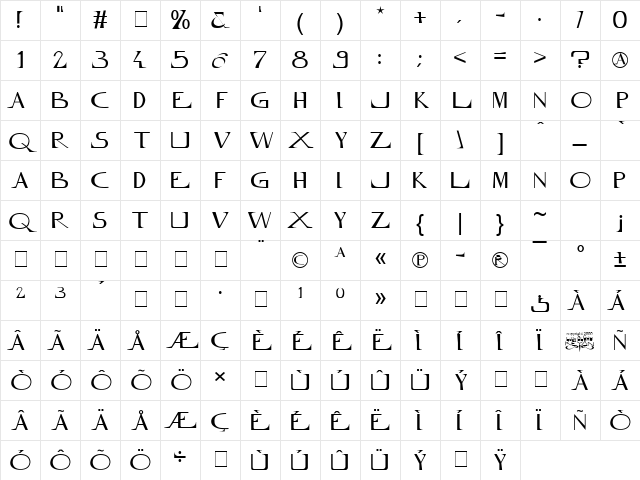
Innamoramento Regular
Designer: Com N'B & Keyan.
Design Context for Innamoramento
Innamoramento is a composed and adaptable typeface that performs quietly and consistently across a wide range of design contexts.